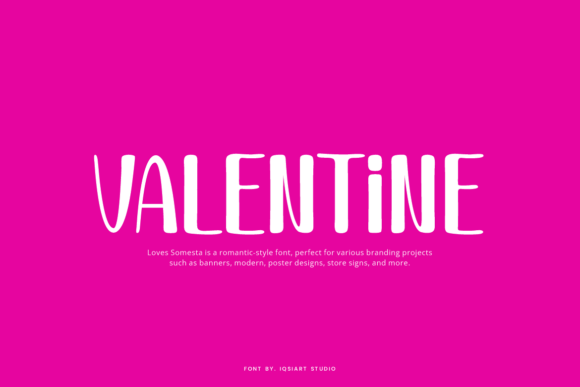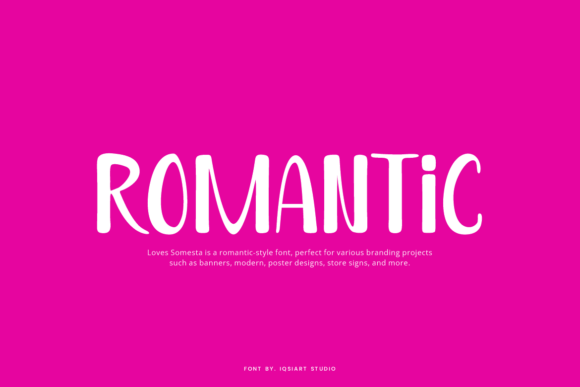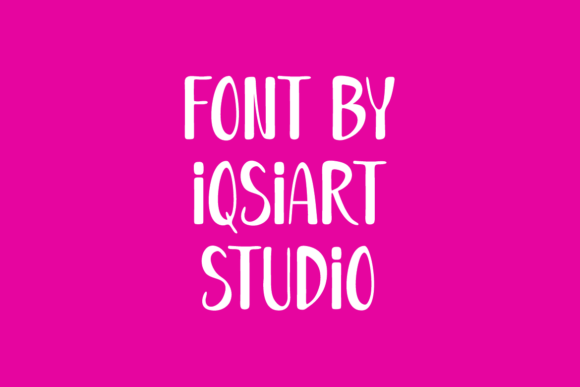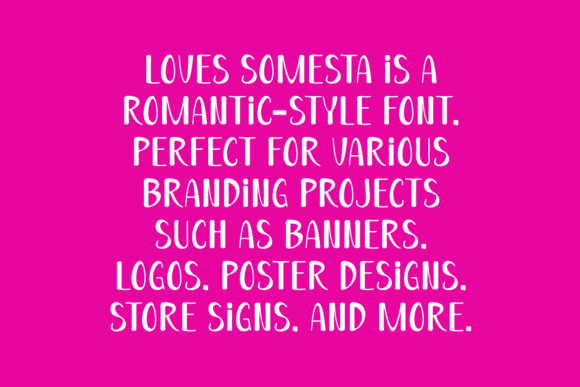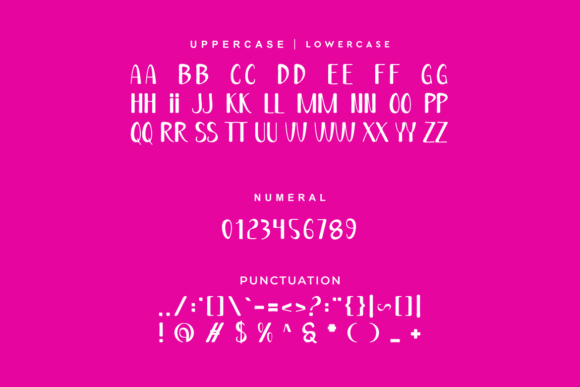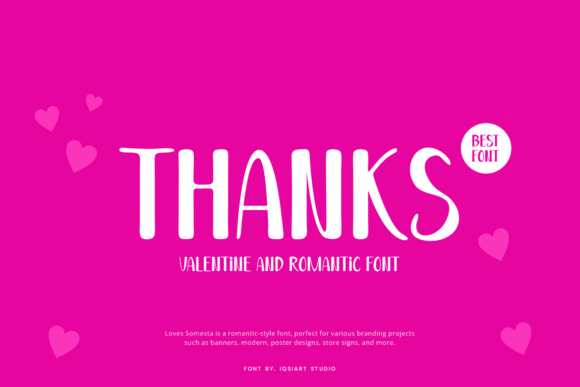
Introduction to Loves Somesta Font
Have you ever stumbled upon a design that speaks directly to your heart? Maybe it was a beautifully handwritten logo, or a social media graphic that perfectly captured the essence of your brand’s personality. For designers, these moments are what make our job so rewarding – and the Loves Somesta Font is one of those moments waiting to happen.
As a high-quality design resource, Loves Somesta Font brings a touch of romance and sincerity to your typography, making it an ideal choice for creative projects that need a little extra love. With its soft, rounded forms and friendly weight, this hand-finished font is perfect for Valentine’s projects, lifestyle branding, and sentimental design that demands a personal touch.
Loves Somesta Font
- High-quality design resource ideal for creative projects, including logos, posters, and digital art.
- Comes in a transparent background, allowing for seamless integration with various design elements.
- Offers a unique and modern aesthetic, perfect for adding a touch of sophistication to any design.
- Supports a wide range of languages, including Latin, Cyrillic, and Greek alphabets.
Honest Review: Loves Somesta Font
I recently stumbled upon the Loves Somesta Font and I must say, it’s been a game-changer for my design projects. The high-quality font has a unique, elegant touch that adds a professional flair to any creative project.
- ✨ Great for titles and headings: The Loves Somesta Font has a bold, yet elegant design that makes it perfect for titles and headings.
- ✨ Customizable: The font comes in different weights and styles, making it easy to customize according to your design needs.
However, I do have a few concerns:
- ⚠️ Limited language support: The Loves Somesta Font only supports a limited number of languages, which may be a drawback for designers who work on projects that require multiple language support.
- ⚠️ No transparent background: The font doesn’t come with a transparent background, which may limit its use in certain design projects.
Overall, the Loves Somesta Font is a fantastic design resource that I would highly recommend. While it has its limitations, the benefits far outweigh the drawbacks. If you’re looking for a high-quality, elegant font for your creative project, look no further than the Loves Somesta Font.
Loves Somesta Font
Designing with Loves Somesta Font in Canva
Tips for Getting the Most Out of Loves Somesta Font
Use Loves Somesta Font with a transparent background to create a clean and minimalist design. Experiment with different font sizes and styles to add visual interest to your project. This font is perfect for creative projects, such as logos, business cards, and social media graphics.
Common Use Cases for Loves Somesta Font
Loves Somesta Font is ideal for designing logos, business cards, and social media graphics. It’s also suitable for creating presentations and documents with a high-quality, professional look. Use this font to add a touch of elegance and sophistication to your design project.